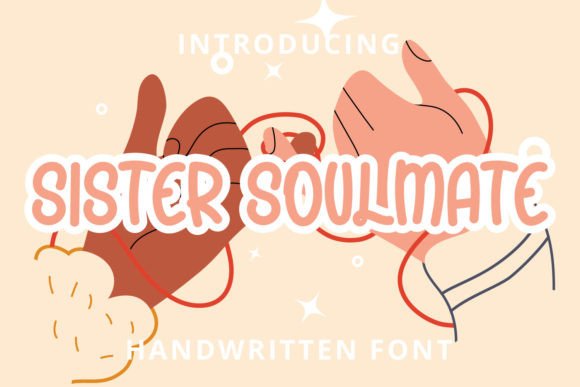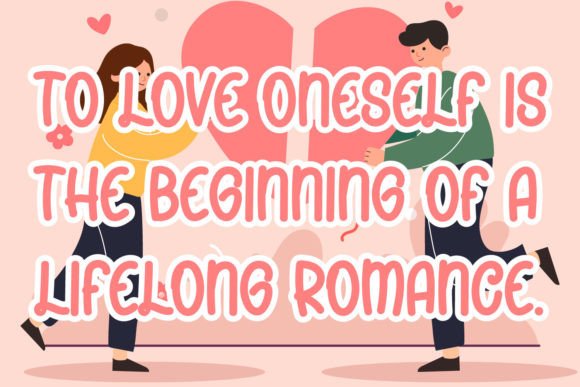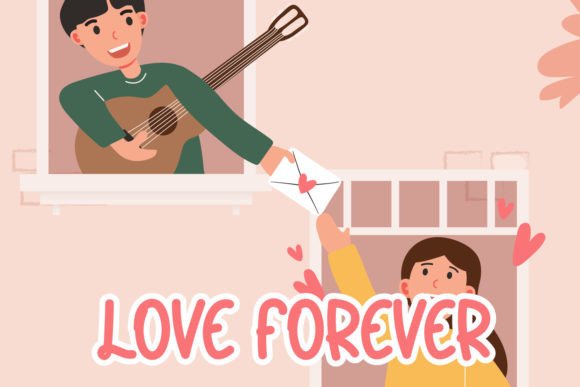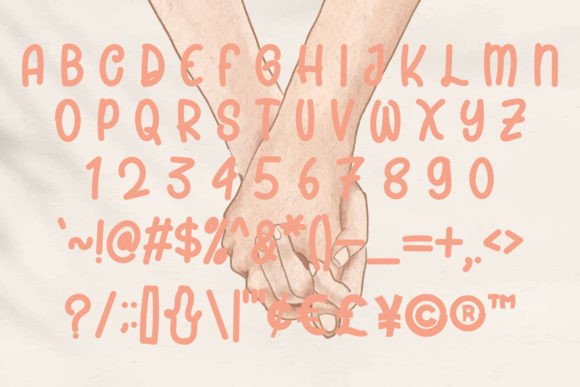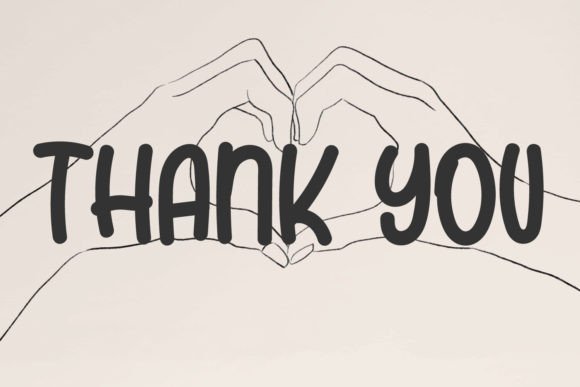
Sister Soulmate Font
About Sister Soulmate Font
Introducing “Sister Soulmate,” a cute and handwritten display font crafted to bring a lovely touch to your creative projects. This font is perfect for a variety of applications, whether you’re working on cartoon-related designs, children’s games, or any project that requires a charming and adorable vibe.
The cute and handwritten style of “Sister Soulmate” makes it a perfect match for projects aimed at a younger audience or those seeking a whimsical and playful feel. Whether you’re designing posters, invitations, or any other creative content, this font adapts seamlessly to infuse a lovely touch.
Envision “Sister Soulmate” enhancing the charm of your designs, adding a cute and handwritten element that stands out. Picture it on children’s books, game interfaces, or any project where a delightful and adorable font is needed. Let “Sister Soulmate” be the choice that brings a touch of sweetness to your creative endeavors.
In summary, “Sister Soulmate” is more than just a font; it’s a cute and handwritten design asset. Embrace its charm confidently, and let it be the perfect match for your cartoon-related designs, children’s games, or any project where a lovely touch is essential. Let “Sister Soulmate” add a delightful and adorable quality to your creations, making them truly special and memorable.